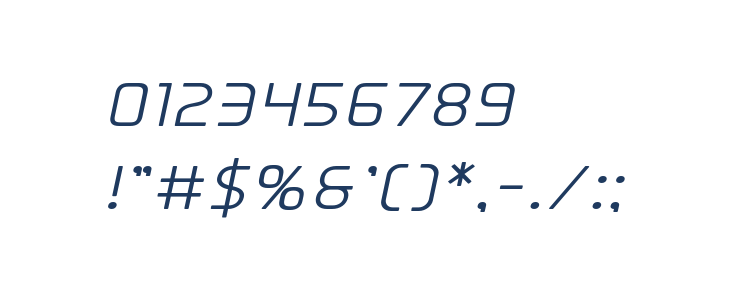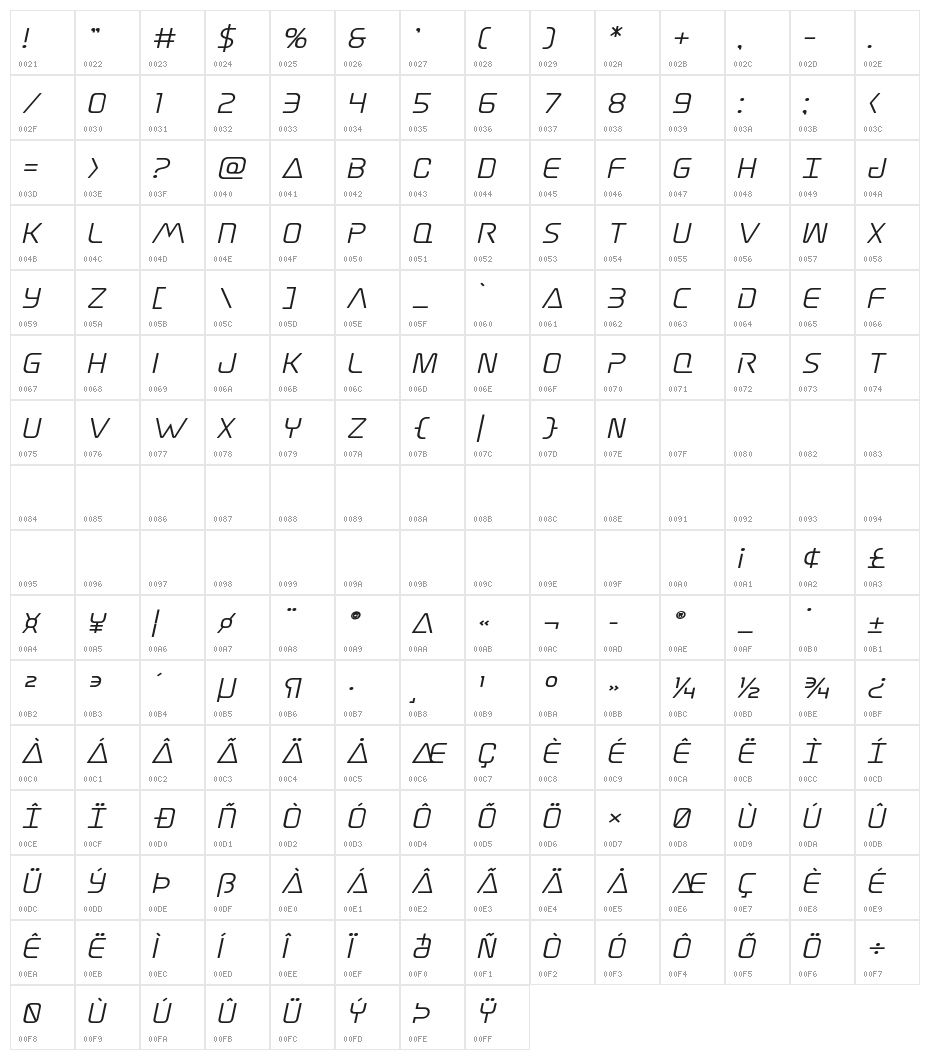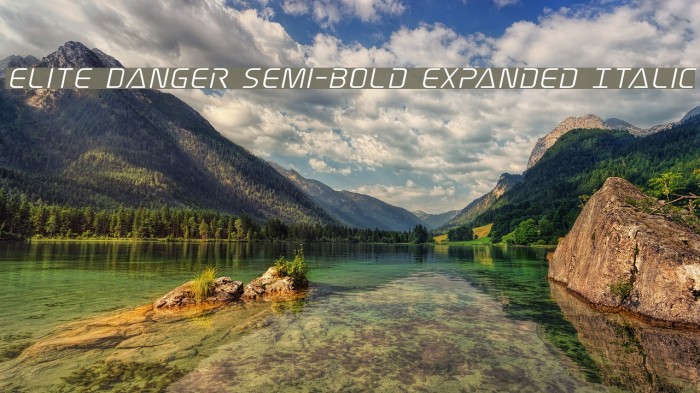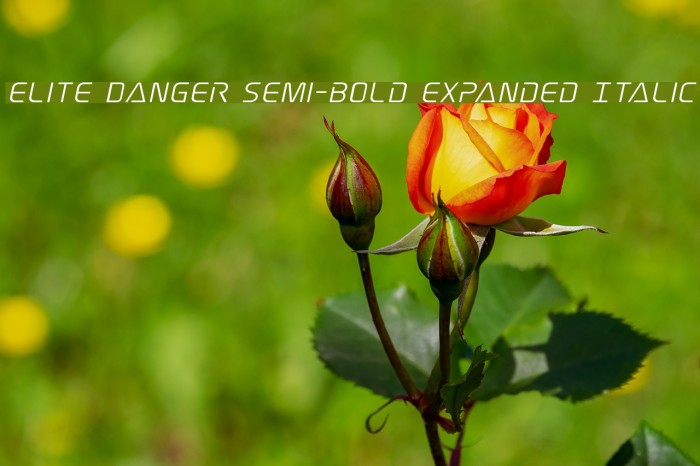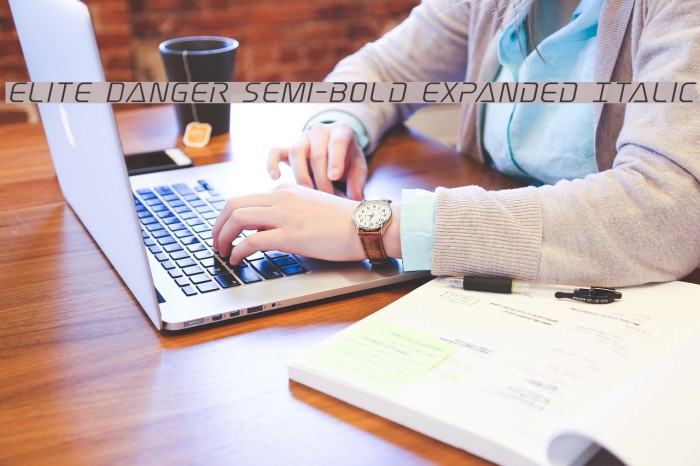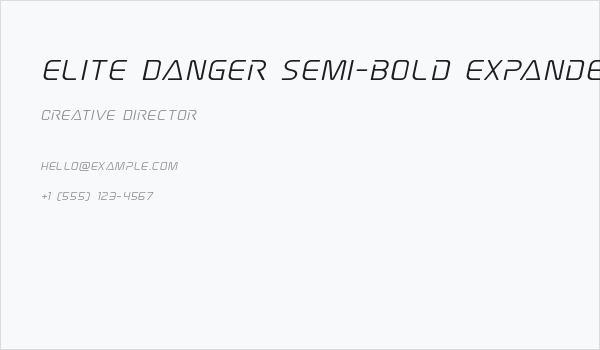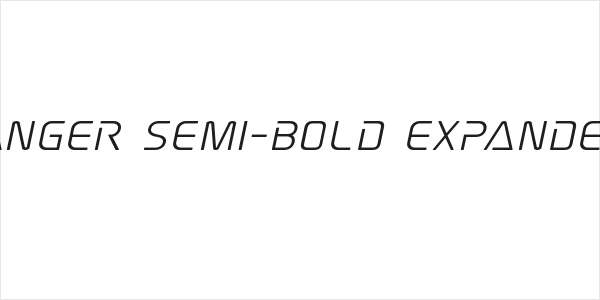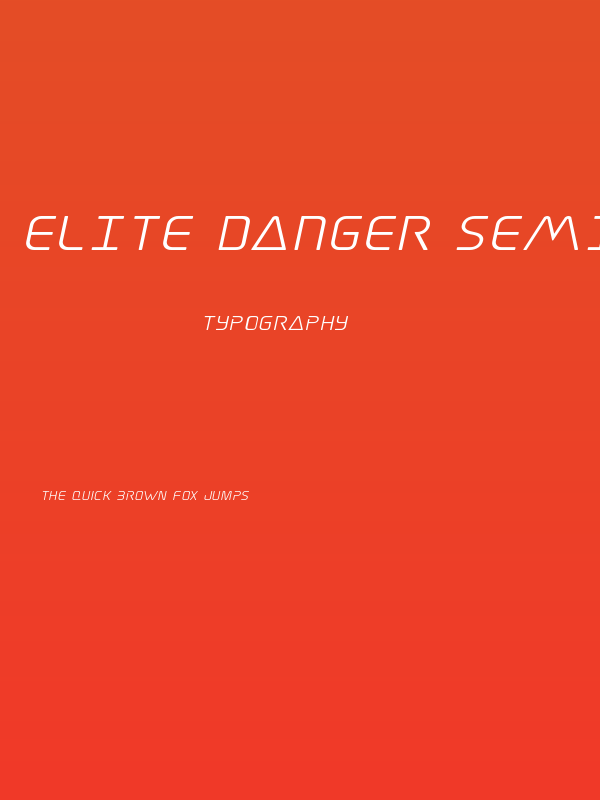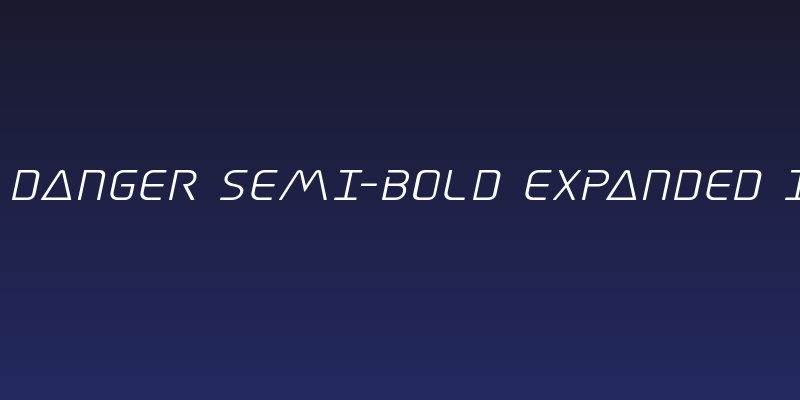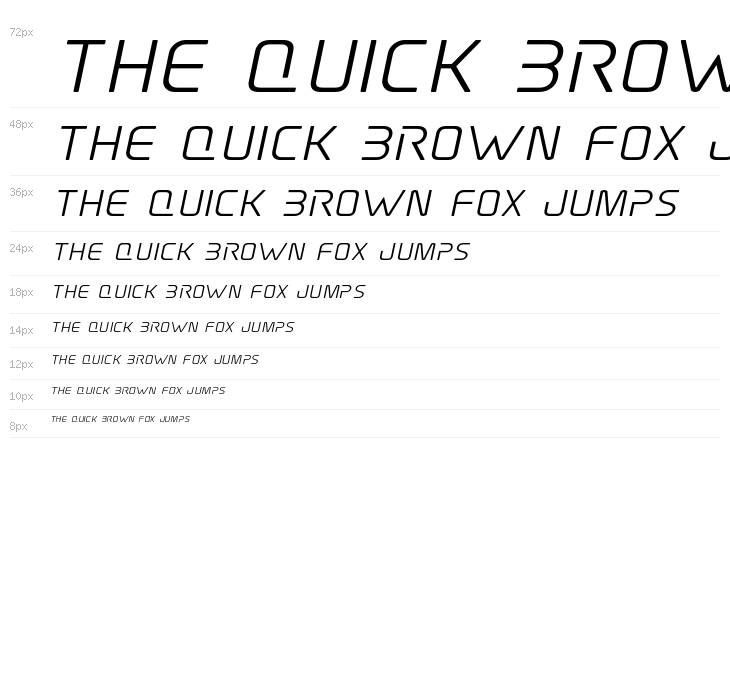
Elite Danger Semi-Bold Expanded Italic Font
Elite Danger Semi-Bold Expanded Italic Description
This font features a modern and sleek design with semi-bold weight and expanded width. The italic style adds a dynamic and forward-leaning appearance, making it suitable for contemporary and futuristic themes. The characters are well-defined with a consistent stroke width, providing a clean and professional look. The spacing between characters is normal, ensuring readability while maintaining a stylish aesthetic. The font includes a full set of uppercase and lowercase letters, numerals, and a variety of special characters, making it versatile for various design needs.